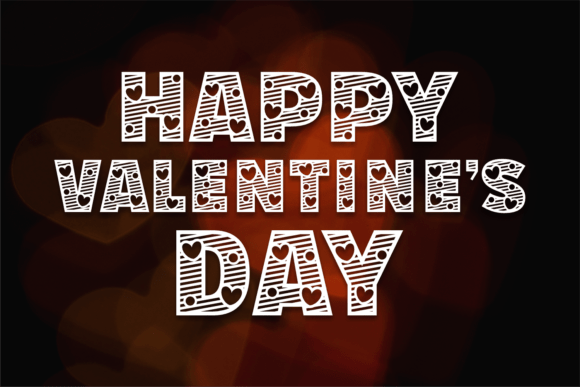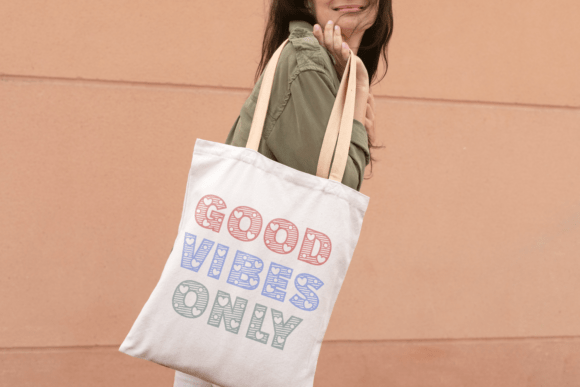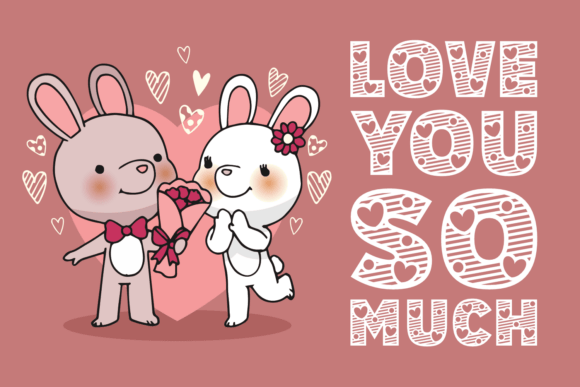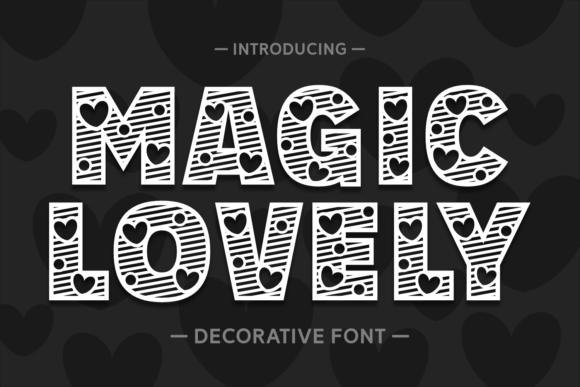
Introduction to Magic Lovely Font
Magic Lovely is a powerful and highly intricate decorative display font.
It is characterized by its bold, heavy, all-caps letterforms that are filled with a distinctive pattern of horizontal stripes and negative-space heart cutouts This unique combination gives it a dramatic, modern, and stylized aesthetic, perfect for high-impact themed visuals.
Key Features of Magic Lovely Font